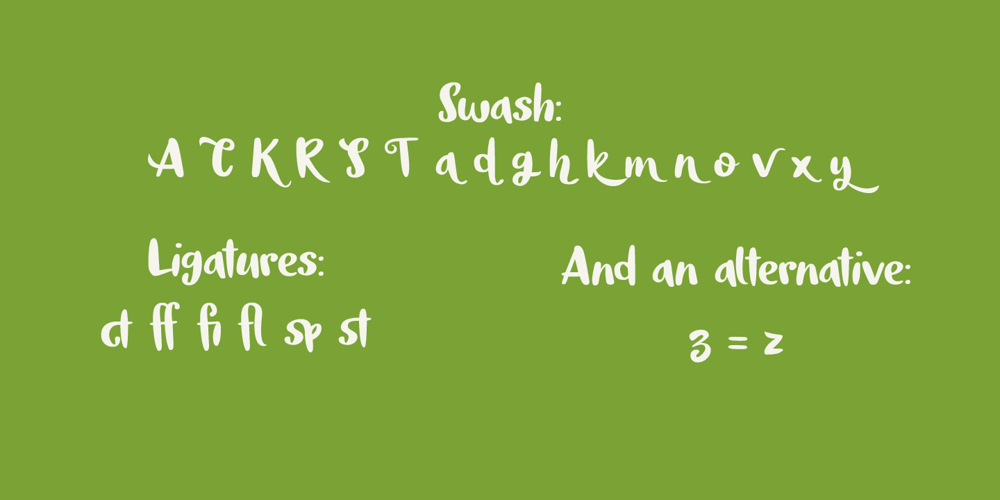
Tokeh Font Family was designed by David Kerkhoff and published by Hanoded. Tokeh contains 2 styles and family package options. A Tokeh (or ‘Tokay’) is a nocturnal arboreal gecko, native to Asia and some Pacific Islands. The name comes from the sound it makes. Tokeh font is a cute brush font, which comes with some swashes, alternates and ligatures.